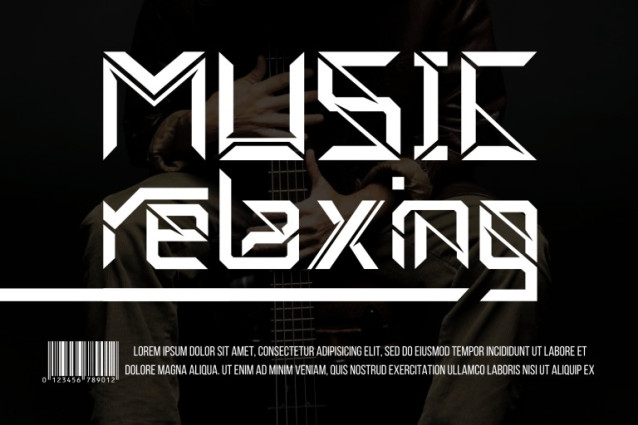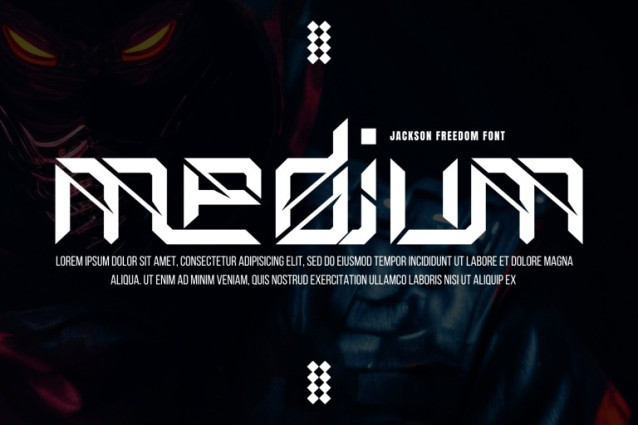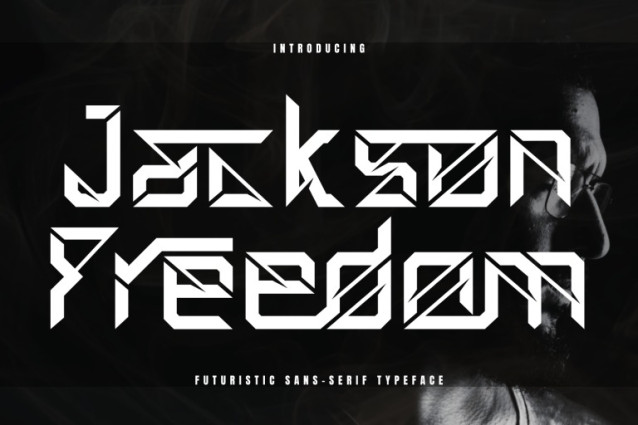
Jackson Freedom Font
Jackson Freedom – Futuristic Font – A Futuristic Geometric Display Font, a bold and futuristic display font designed with sharp angles, geometric precision, and cutting-edge style. Each letterform embodies strength and innovation, making it the perfect choice for projects that demand a modern and striking visual presence. With its edgy construction and tech-inspired design, Jackson Freedom is ideal for esports branding, sci-fi posters, music covers, gaming interfaces, futuristic logos, and any project that seeks to stand out with a bold, avant-garde aesthetic.
🔤Font Features:
Uppercase & Lowercase Letters
~100 Futuristic Ligatures
Accented Characters for multilingual support
🔤About 100 ligatures combined with Stylistic Alternates Font: